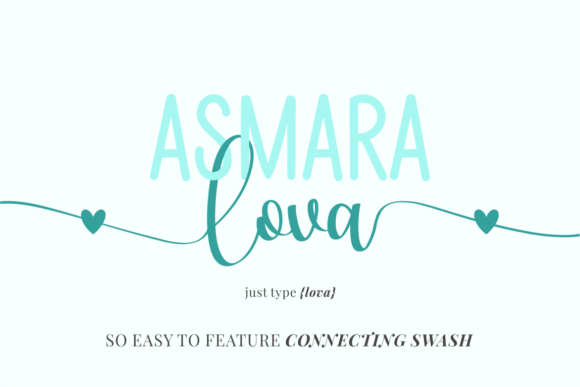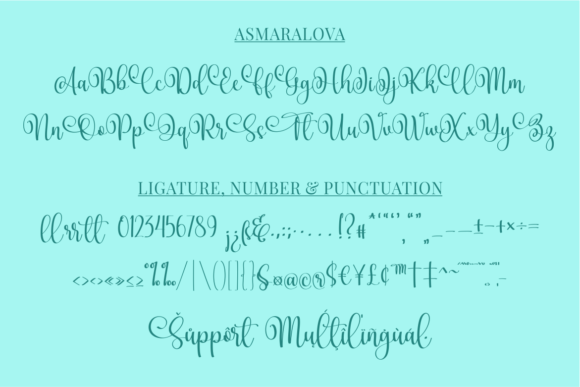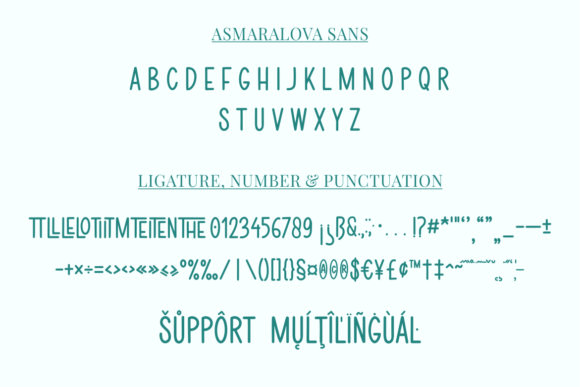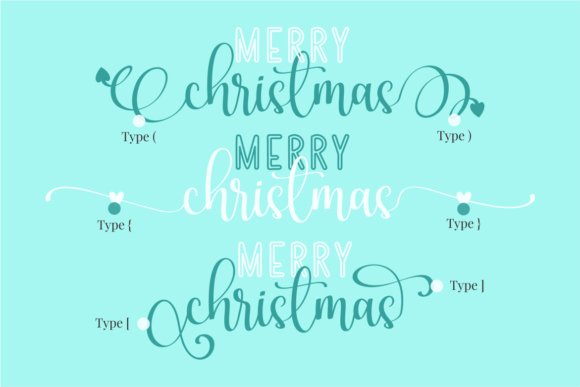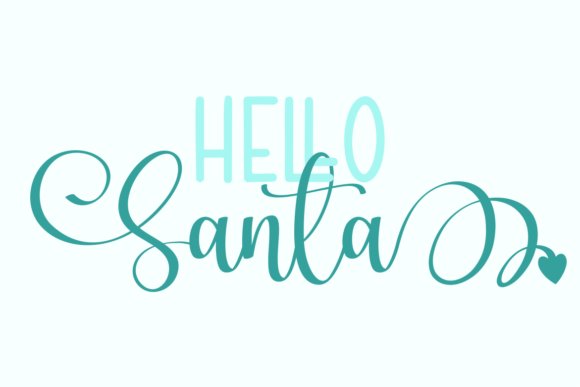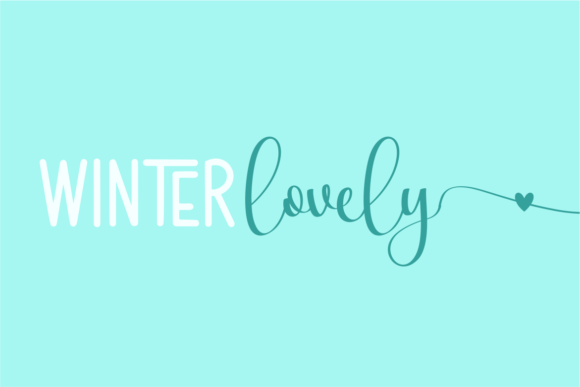
The Perfect Script for Your Creative Projects
Remember that moment when you wanted to express your deepest emotions on a handmade card, but the right words just weren’t enough? The perfect balance of style and emotion can make all the difference. This is where the Asmaralova Font comes in – a beautiful, handwritten duo font that adds a touch of romance to any design project.
Whether you’re working on greeting cards, headlines, or other creative endeavors, the Asmaralova Font is the perfect choice. Its versatility and delicate style make it an invaluable asset for designers looking to add a personal touch to their work. With the Asmaralova Font, you can bring your ideas to life in a way that feels both unique and timeless.
Asmaralova Font Key Features
- Font Family: Asmaralova is a script font family, ideal for creative and elegant designs.
- Unique Characteristics: Asmaralova features intricate, hand-drawn letterforms with subtle flourishes and a touch of elegance, making it perfect for invitations, wedding designs, and other high-end projects.
Asmaralova Font Review
Overall, I think the Asmaralova font has a lot of potential, but it also has some limitations that prevent it from being a top choice for designers. Here are my thoughts:
- The font has a unique, exotic feel that can add a touch of elegance to any design.
- The script style is well-executed, with smooth connections between letters.
- The font is highly customizable, with a wide range of weights and styles available.
- The font can be difficult to read at small sizes, with some letters looking quite similar.
- The font’s unique style may not be to everyone’s taste, and some designers may find it too ornate.
- The font lacks a clear direction or focus, making it difficult to use in a cohesive way.
The Asmaralova font is a solid choice for designers who want to add a touch of elegance and sophistication to their work. While it has some limitations, it also has a lot of potential for creative expression. With some careful use and consideration, I think this font could be a valuable addition to any designer’s toolkit.
Tips for Getting the Most Out of Asmaralova Font
To get the most out of Asmaralova Font, try the following:
- Use it for titles and headings to add a touch of elegance.
- Pair it with other fonts to create a unique and interesting typography.
Asmaralova Font is commonly used for:
- Business cards and branding materials.
- Magazine and book titles.
Alternatives to Asmaralova Font
Pacifico is a beautiful, modern calligraphy font that is perfect for creating a luxurious and elegant feel in your designs. It’s ideal for use in invitations, branding, and other high-end materials. When to use: Formal events, luxury brands, and high-end products.
Comparison to Asmaralova Font: Pacifico has a more refined and sophisticated look compared to Asmaralova Font, which has a more playful and whimsical feel. Pacifico is also more versatile and can be used in a variety of contexts, while Asmaralova Font is more suited for specific niches.
Carolyna Pro is a elegant and sophisticated script font that is perfect for creating a high-end feel in your designs. It’s ideal for use in branding, packaging, and other materials where a touch of luxury is needed. When to use: Luxury brands, high-end products, and formal events.
Comparison to Asmaralova Font: Carolyna Pro has a more polished and refined look compared to Asmaralova Font, which has a more rustic and vintage feel. Carolyna Pro is also more versatile and can be used in a variety of contexts, while Asmaralova Font is more suited for specific niches.
Great Vibes is a beautiful, modern script font that is perfect for creating a fun and energetic feel in your designs. It’s ideal for use in branding, advertising, and other materials where a touch of playfulness is needed. When to use: Casual events, youth brands, and fun products.